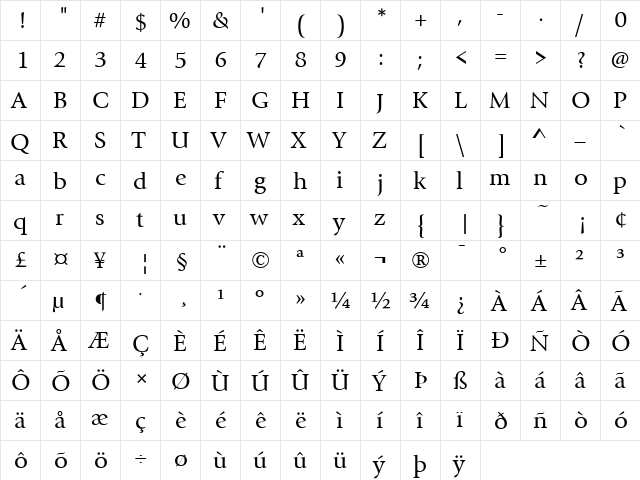
Giovanni Itc T Regular
Giovanni Itc T is a composed and adaptable typeface that performs quietly and consistently across a wide range of design contexts.